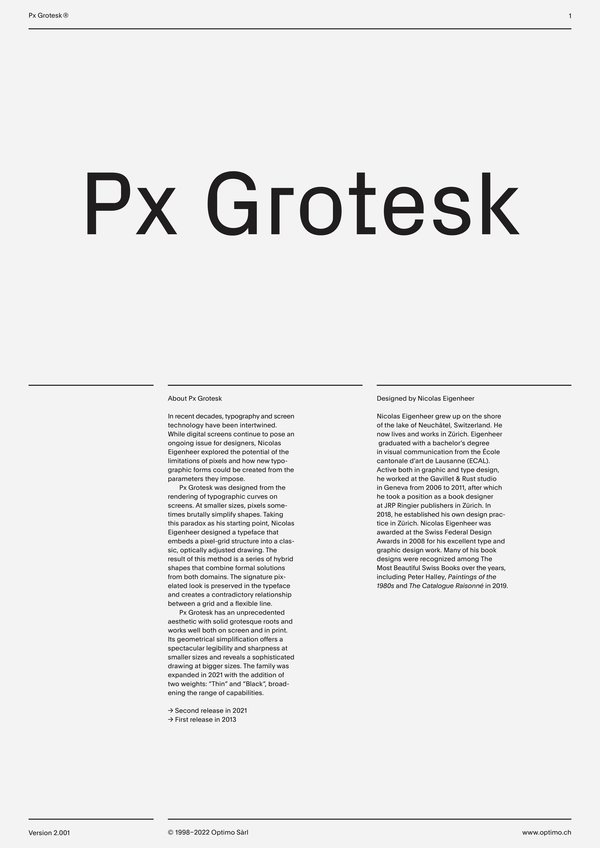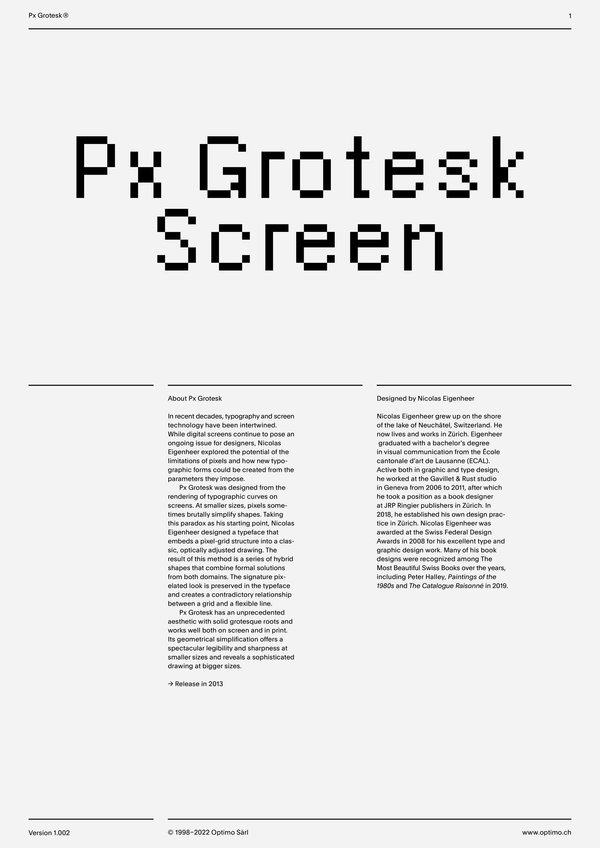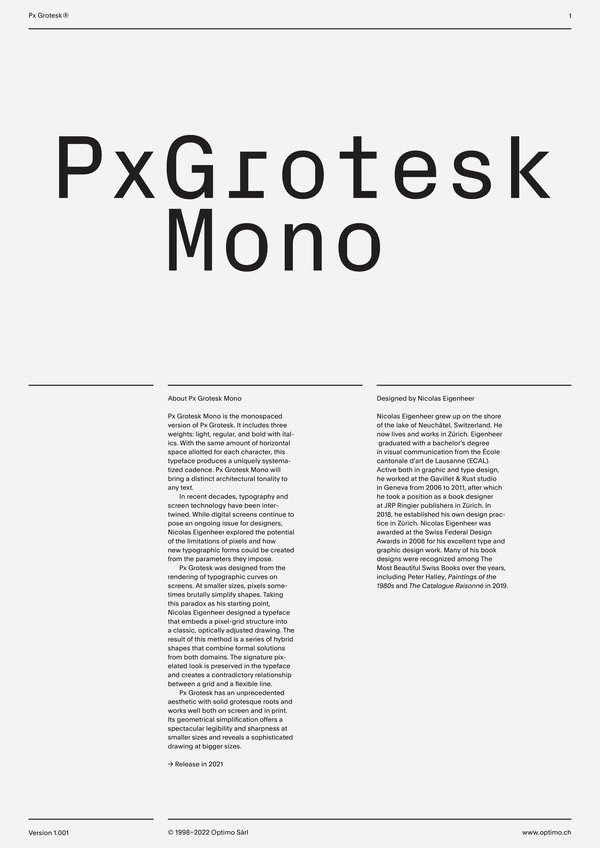
Px Grotesk
Case Sensitive Forms
All Caps [cpsp]
Case Sensitive Forms [case]
This function formats the text in uppercase and adjusts spacing between all capital letters. It also applies the ‘Case Sensitive Forms’ feature which replaces certain characters with alternates that are better suited for all capital text, especially related to punctuation.
Contextual Alternates
Contextual Alternates [calt]
This feature adapts the position of a glyph after its surrounding context. For instance, a dash placed between two uppercase letters or numbers will be replaced by an uppercase version of the dash, slightly higher. This feature is usually active by default in Adobe applications.
Alternate at symbol
Stylistics Set [ss01]
This feature replaces glyph(s) with stylistic alternate(s).
Alternate zero
Stylistics Set [ss08]
This feature replaces glyph(s) with stylistic alternate(s).
Tabular Lining Figures
Tabular Lining Figures [tnum–lnum]
Based on the proportions of the capitals, lining figures have an invariable height. With the combination of the tabular spacing format, the width of each numeral is uniformized. This feature is useful when numerals need to all lined up. It facilitates the reading of numbers set within columns or tables. As some applications don’t have access to this feature, proportional figures are set as the default choice.
Alternate arrows
Stylistics Set 2 [ss02]
This feature replaces glyph(s) with stylistic alternate(s).
Fractions
With this feature, any numbers separated by a slash will automatically turn into a fraction. To fit in fraction configuration, numerals have been designed smaller and their weights have been adjusted to suit the typeface.
Lowercase math symbols
Stylistic Set 6 [ss06]
This feature activates alternate lowercase positioning of mathematical symbols.
Ornaments and symbols
Stylistic Set 7 [ss07]
This feature replaces glyph(s) with stylistic alternate(s).
This feature replaces any letter following a numeral with its matching superior letters. French language uses the ordinal indicators such as ‘er’ for 1er premier, while Spanish, Portuguese and Italian require the feminine and masculine ordinals ‘a,’ ‘o’ for 1º, 1ª. Ordinals are designed to match the weight of the typeface.
Slashed Zero Oldstyle
Slashed Zero [zero]
Originally created to avoid the confusion between the ‘0’ and the ‘O’, this feature substitutes all zeros in a selected text by a slashed form of the zero.
Proportional Oldstyle Figures [onum]
Tabular figures are all of equal width. They are only needed when the figures must all line up from one line to the next, as in a table. Proportional figures have varying widths, just like most letters; each number has a width appropriate to its design. Lining figures are all the same height, usually similar to that of capital letters. They are needed for use with all-capital settings.
Multiply sign
Stylistic Set 20 [ss20]
This feature substitutes the letter “x” into the multiplication sign.
Numerators [numr]
This feature substitutes glyphs with their matching smaller alternates. The numerators are the same glyphs that are used to create fractions, their vertical position remains within the capital letters height. These glyphs are reduced in size and designed slightly heavier to keep them consistent with the rest of the font.
This feature substitutes glyphs with their matching smaller alternates and low position glyphs. The denominators are the same glyphs that are used to create fractions, their vertical position remains within the base line. These glyphs are reduced in size and designed slightly heavier to keep them consistent with the rest of the font.
Superscript/Superiors
This feature substitutes glyphs with their matching smaller alternates which are set slightly above the height of the capital letters. These glyphs are reduced in size and designed slightly heavier to keep them consistent with the rest of the font.
Px Grotesk has an unprecedented aesthetic with solid grotesque roots and works well both on screen and in print. Its geometrical simplification offers a spectacular legibility and sharpness at smaller sizes and reveals a sophisticated drawing at bigger sizes.